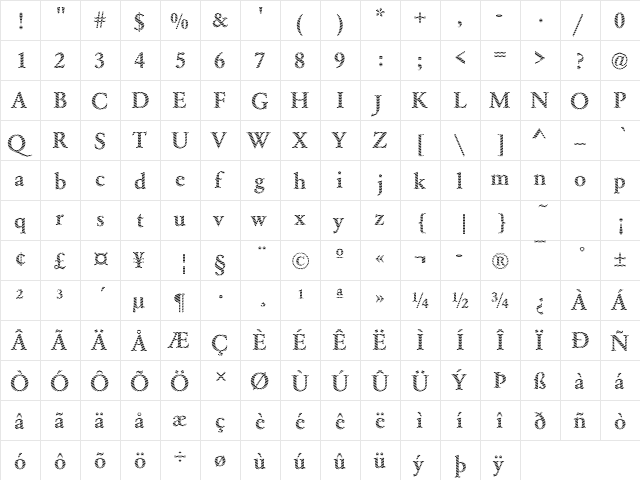
Garamond05 Becker Regular Font Preview
Garamond05 Becker Regular
Garamond05 Becker Regular Font Details
Design Context for Garamond05 Becker Typeface
Garamond05 Becker is a composed and adaptable typeface that performs quietly and consistently across a wide range of design contexts.